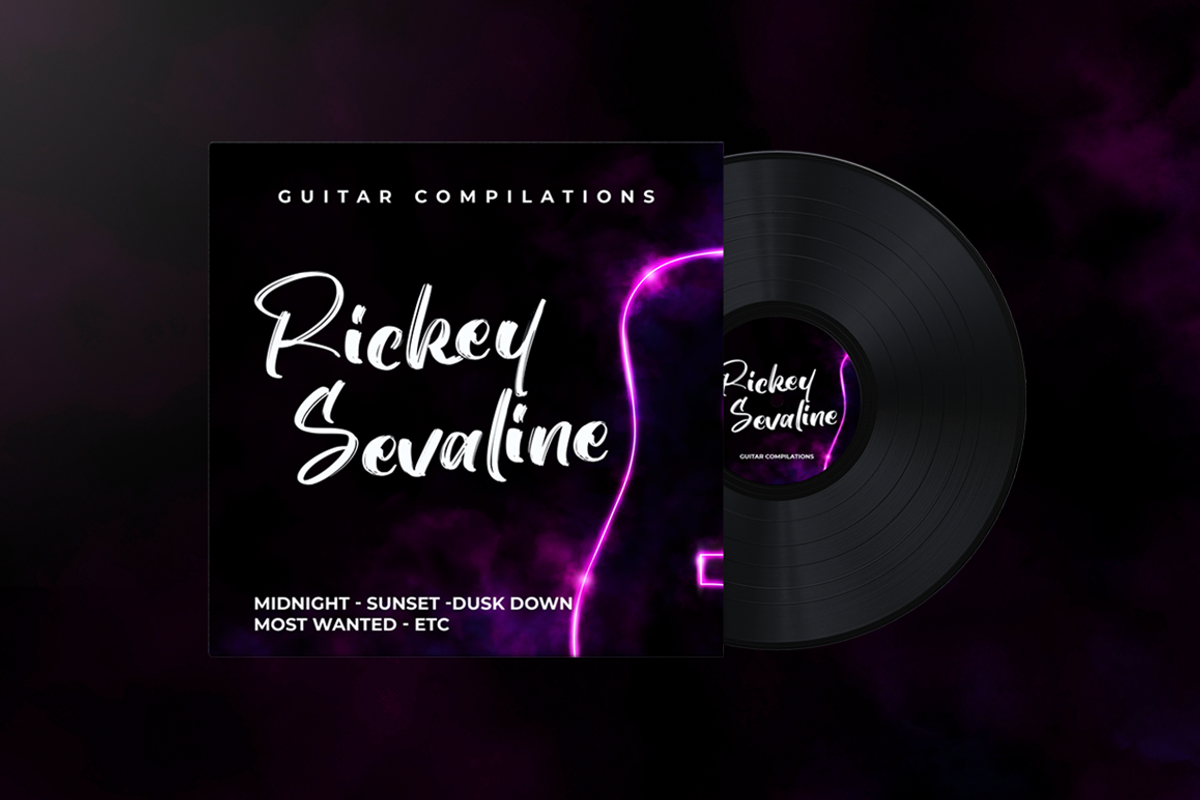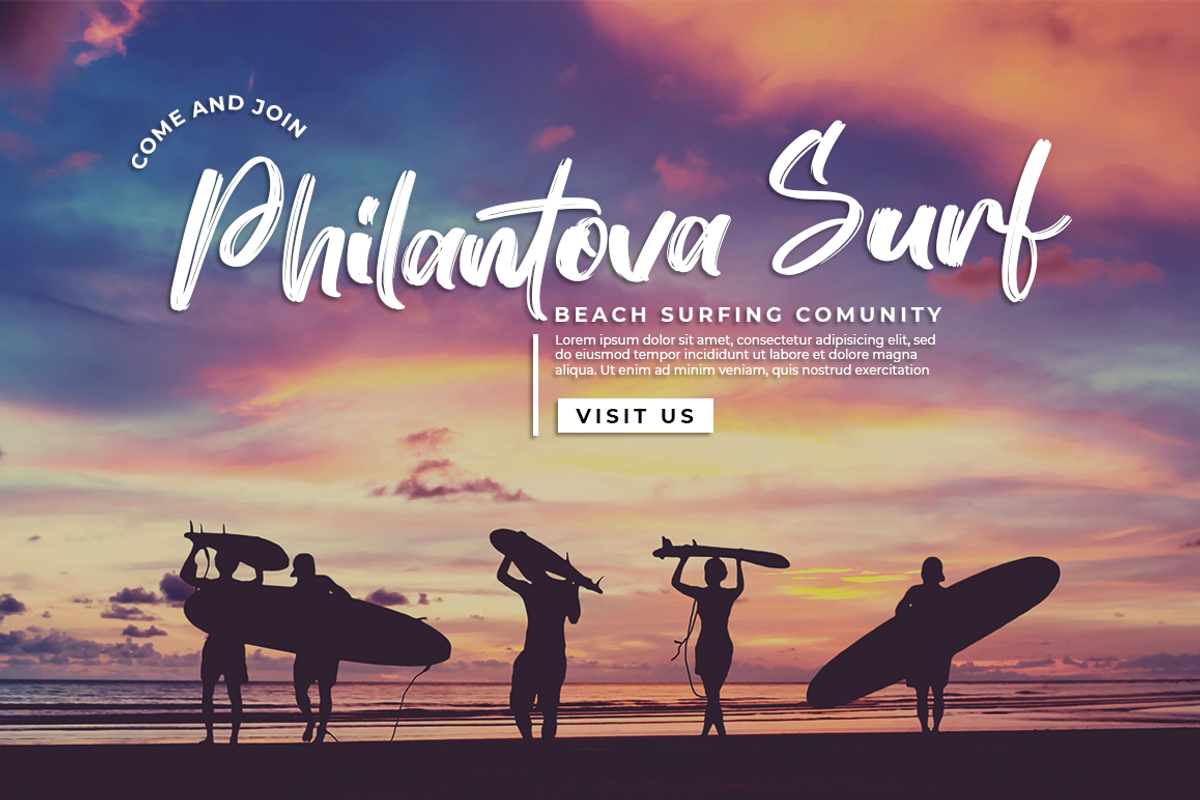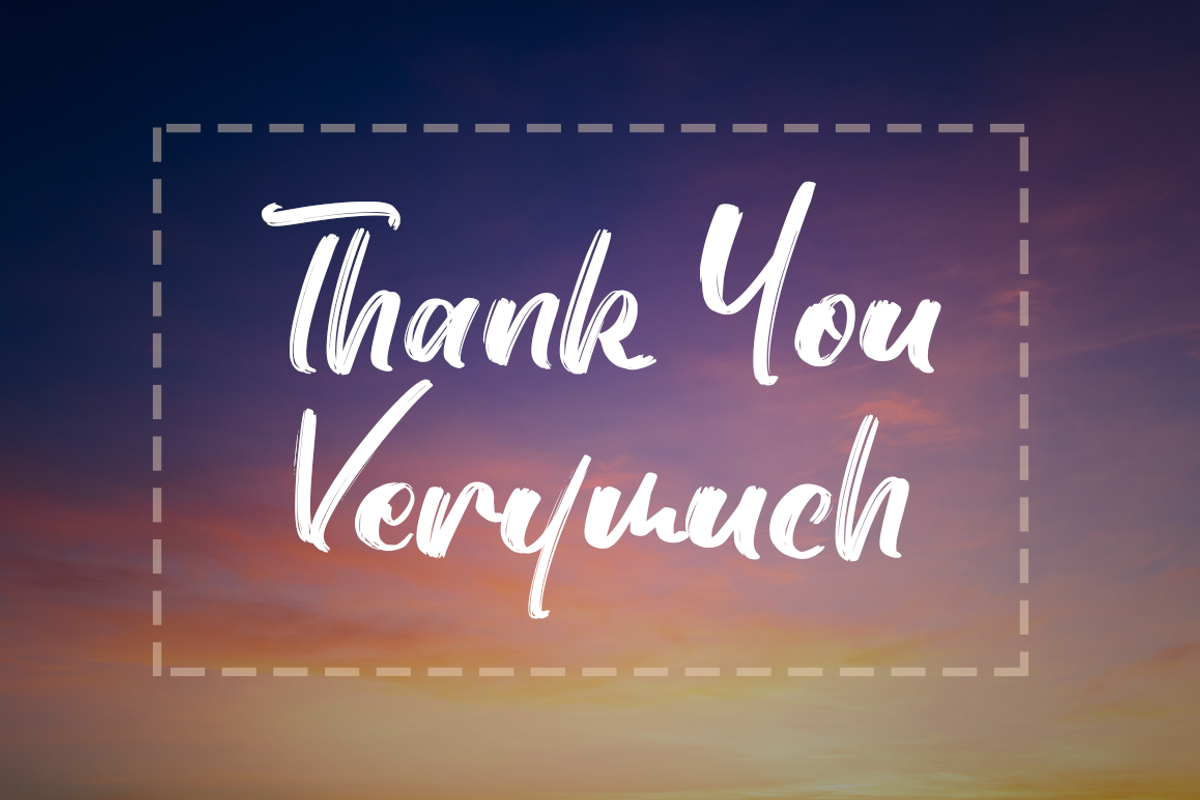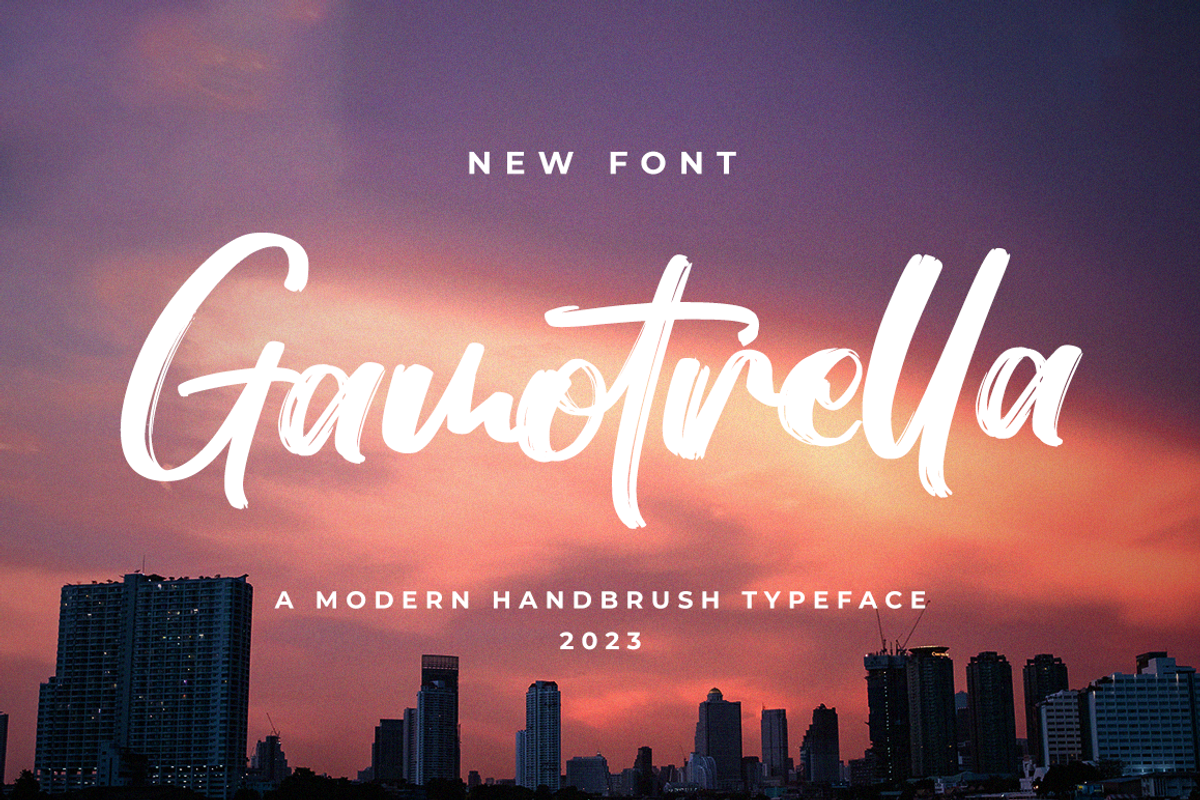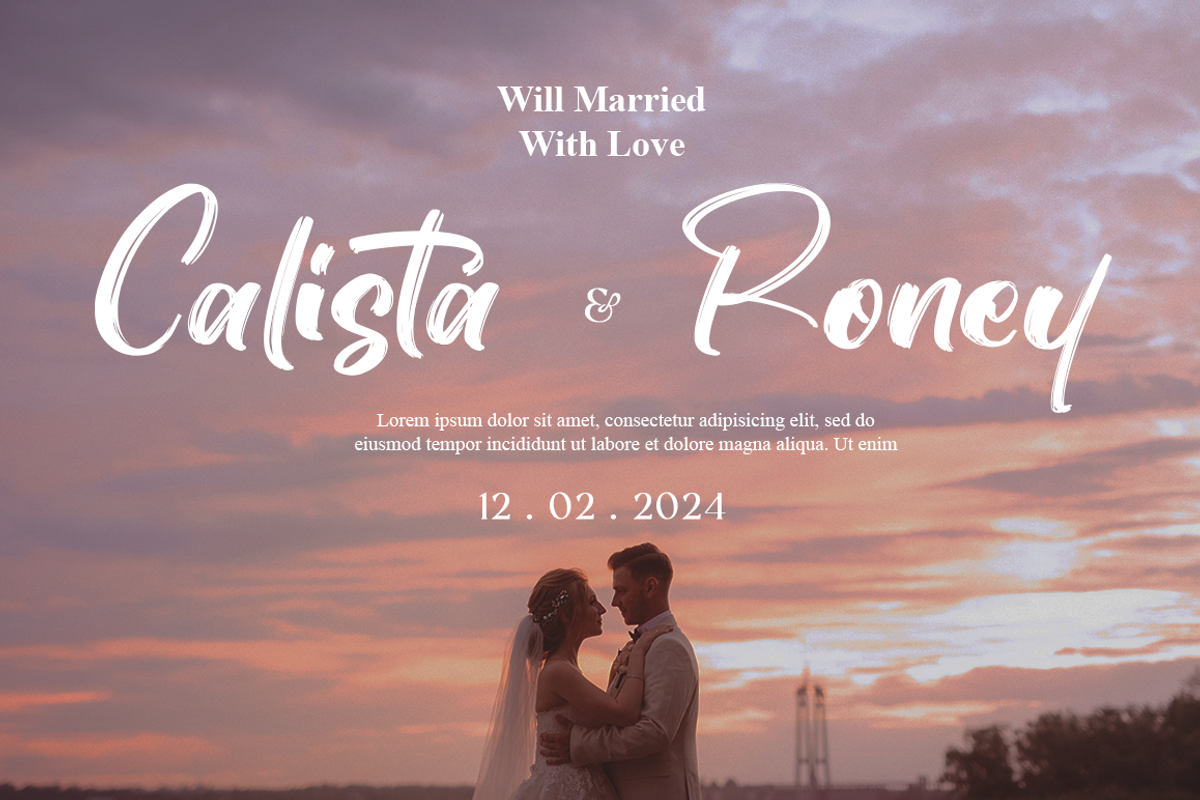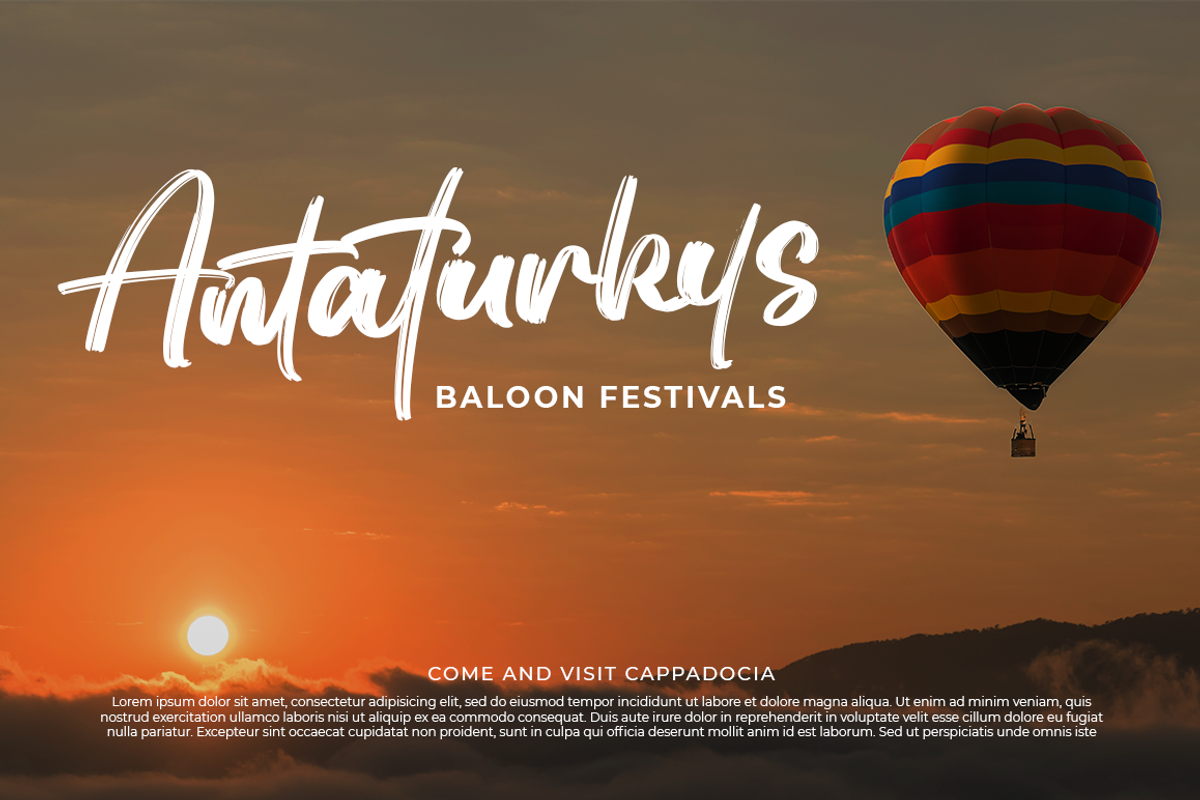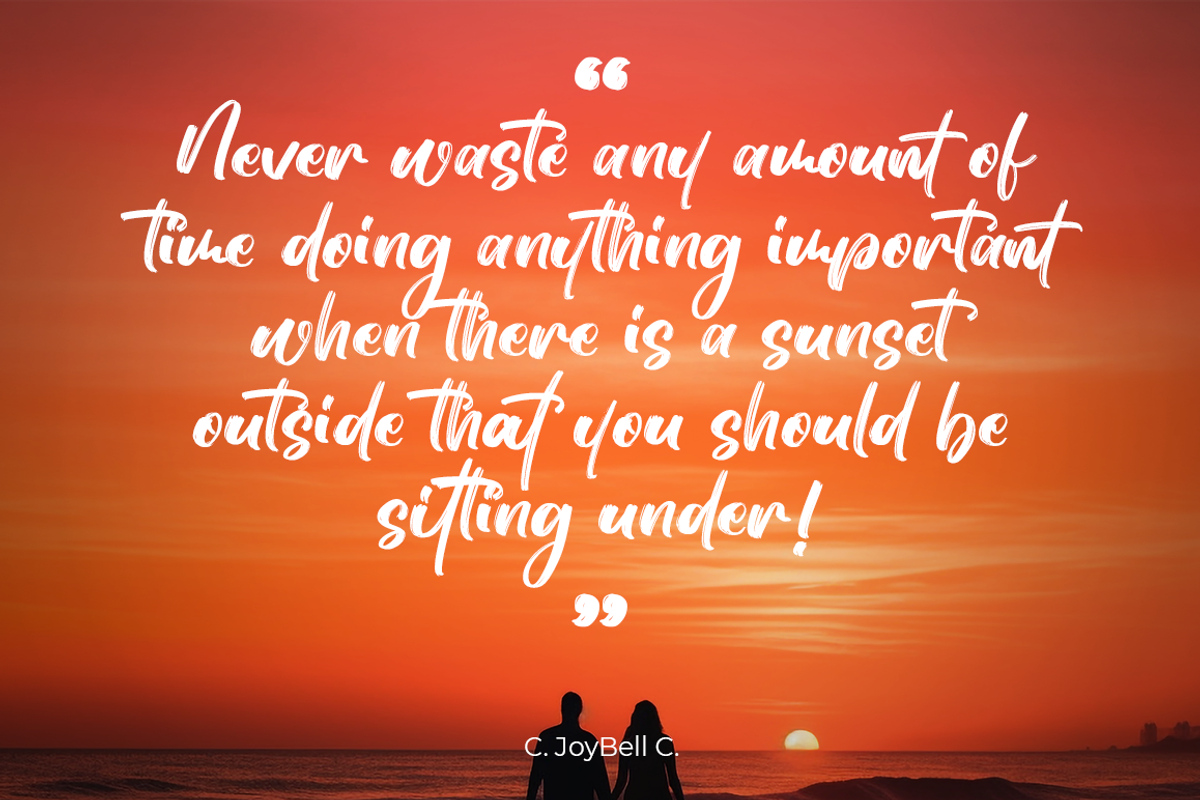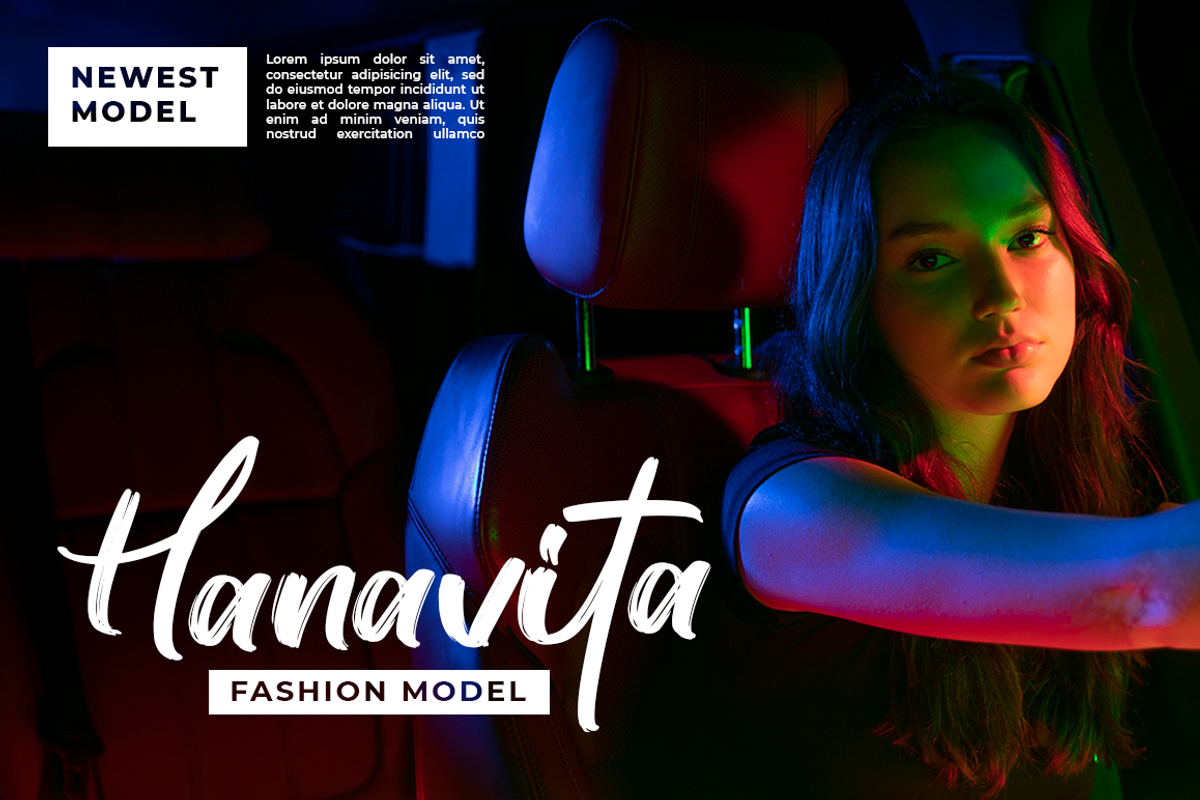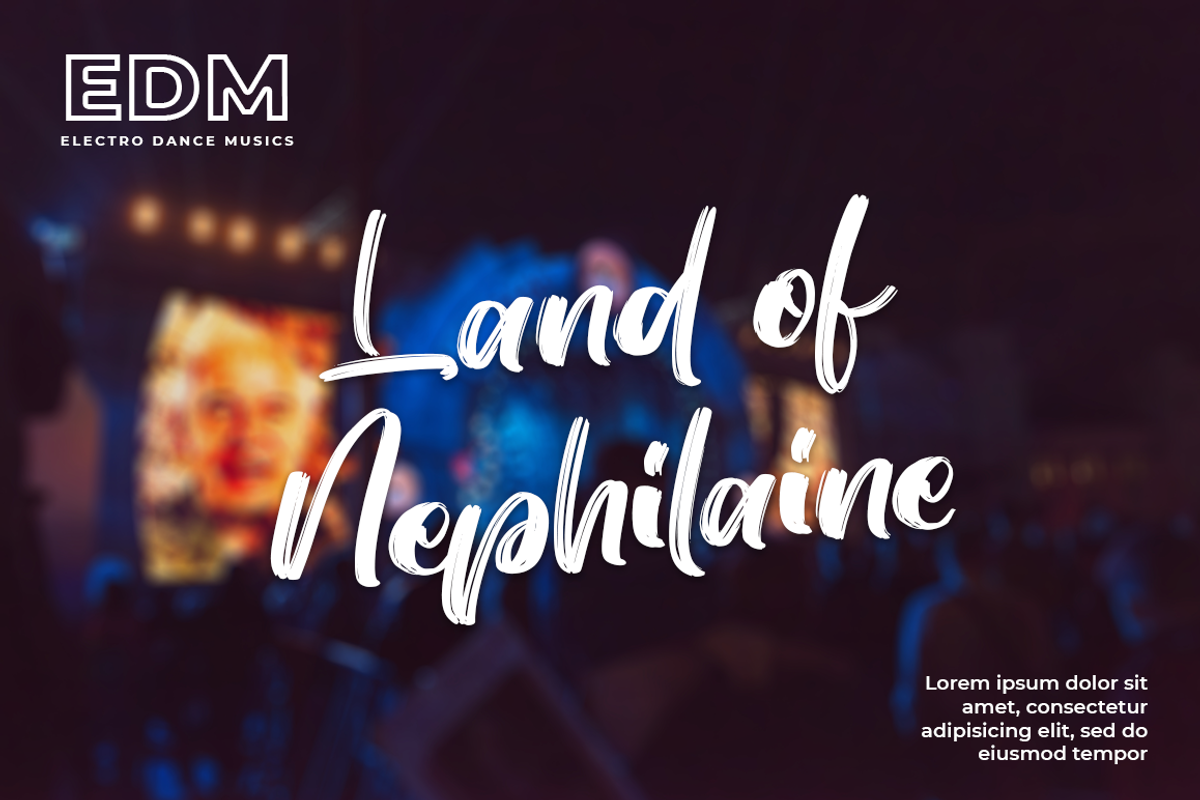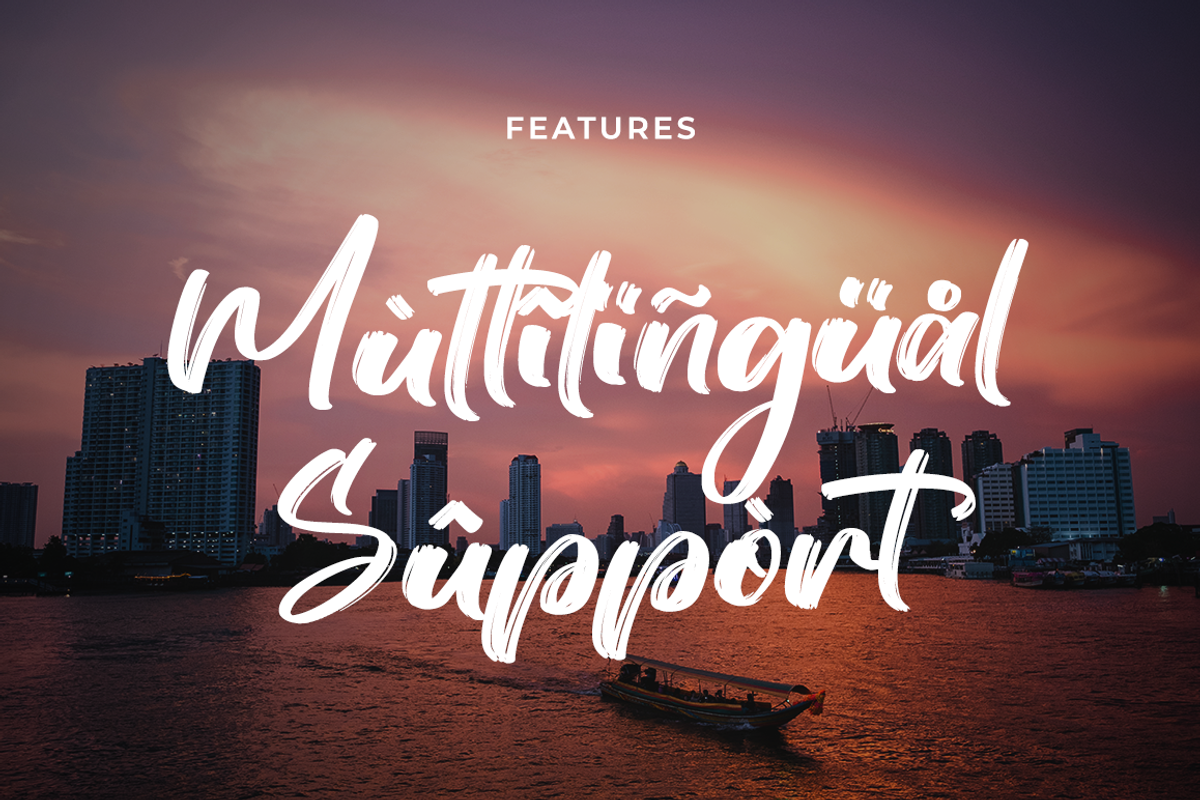
Gamotrella - Brush Font
Gamotrella is a natural handwritten brush font. It’s ideal for branding and decorating your projects, creating wedding invitations, book covers, marketing, and much more!